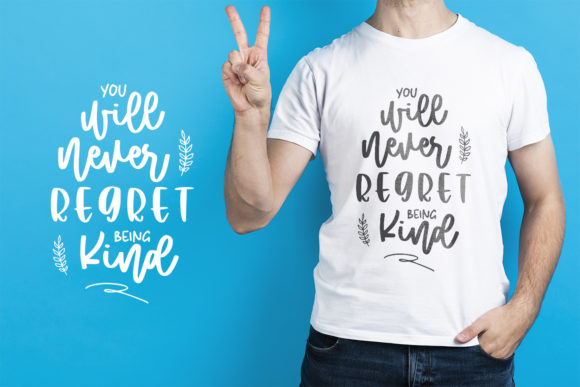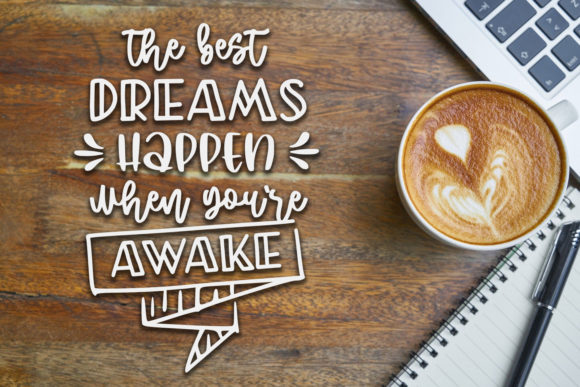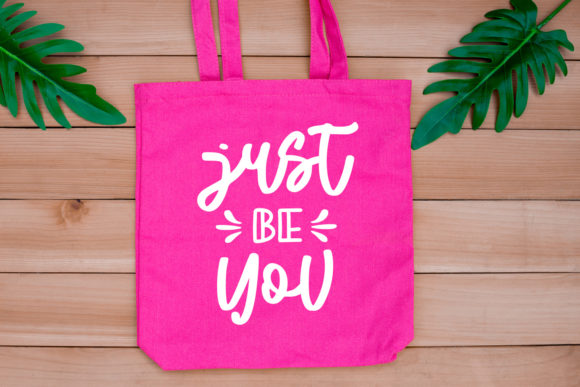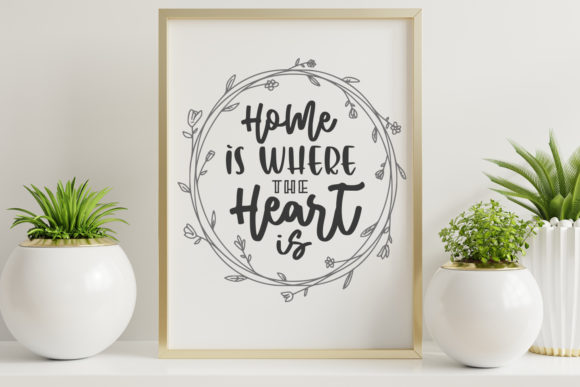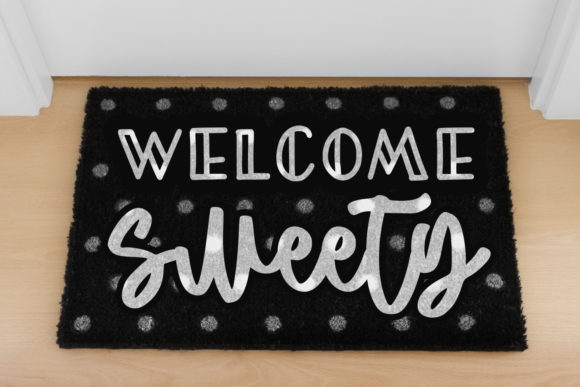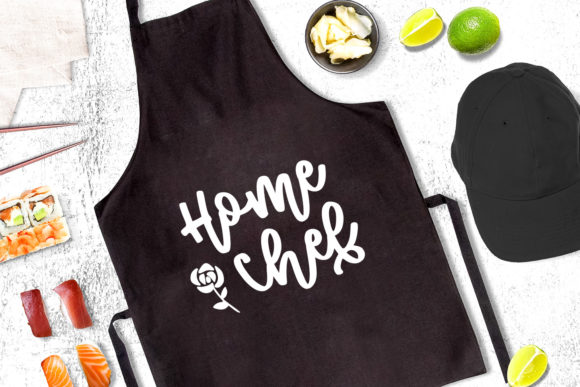
Introduction to Malihah Font
Have you ever stumbled upon a design project that sparks pure joy and creativity? For many of us, it’s the little things in life that bring us the most happiness. For designers, it’s often the discovery of a new, high-quality font that can elevate our creative project to the next level. One such font that’s sure to put a smile on your face is the adorable Malihah Font.
With its joyful, bouncy, and incredibly cute handwritten style, Malihah Font is the perfect design resource for any creative project. Whether you’re planning a wedding and want to create gorgeous invitations or simply need a font for a social media post, Malihah Font is sure to bring a touch of whimsy and charm to your work.
Key Features of Malihah Font
- High-quality design: The Malihah Font is designed with precision and care to ensure a high-quality appearance in any creative project.
- Unique characteristics: The Malihah Font features a unique, hand-drawn style that adds a touch of elegance to any creative project.
Honest Review: Malihah Font
I recently had the chance to work with the Malihah Font, and I must say it’s a great addition to any design project. This font is perfect for creating a unique and eye-catching visual identity for your brand or creative project.
- ✨ High quality and crisp typography, making it ideal for both digital and print media.
However, I did encounter some limitations with the Malihah Font. The font lacks a bold weight option, which can make it difficult to use for headings or titles. Additionally, the font’s aesthetic may not be suitable for all design projects, as it has a distinct, hand-drawn feel.
⚠️ These limitations are worth considering, especially if you’re working on a project that requires a more traditional or formal font.
Overall, the Malihah Font is a great choice for designers looking to add some personality to their projects. While it may not be perfect for every design task, its unique charm and high quality make it a valuable resource for any creative project.
Common Use Cases for Malihah Font
The Malihah Font is ideal for creative projects such as logos, branding, and typography-based designs. Its high-quality design and free download make it a valuable design resource for professionals and hobbyists alike.